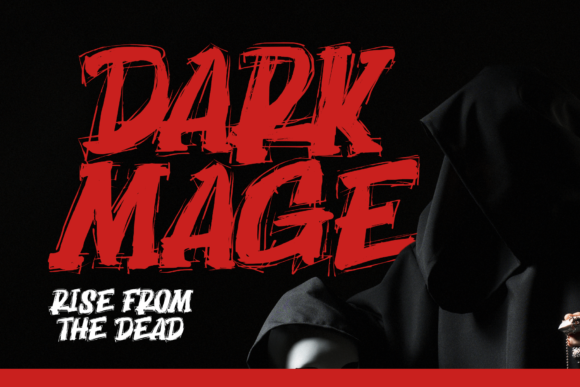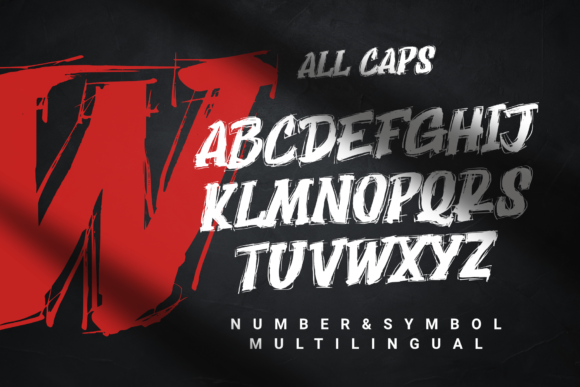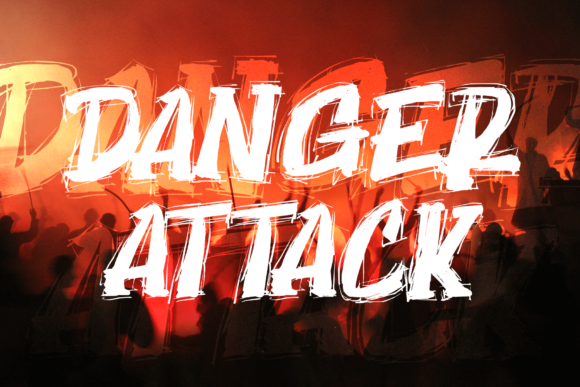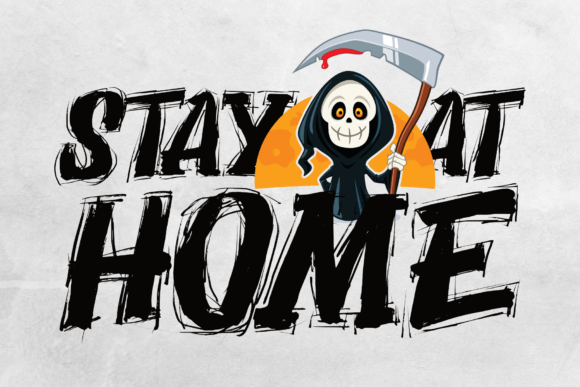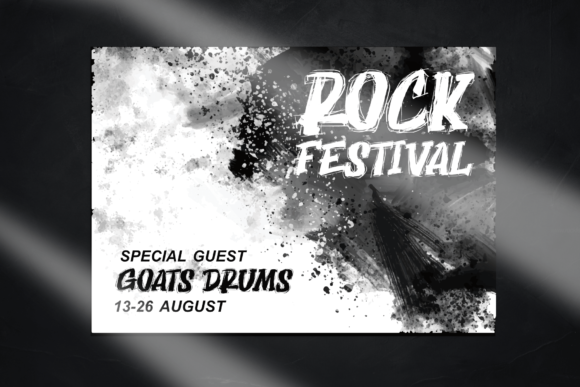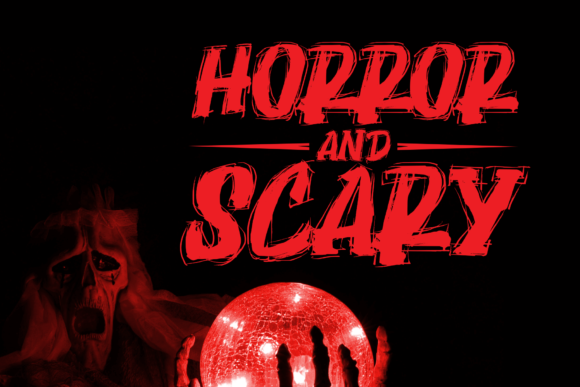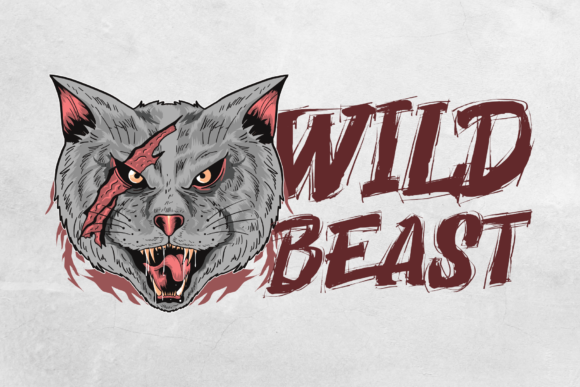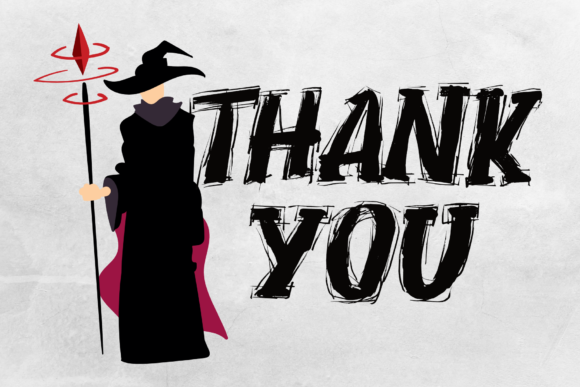
Dark Mage Font
Dark Mage is a modern and quirky display font with a spooky feel. Dark Mage is the perfect font for making original and outstanding designs.